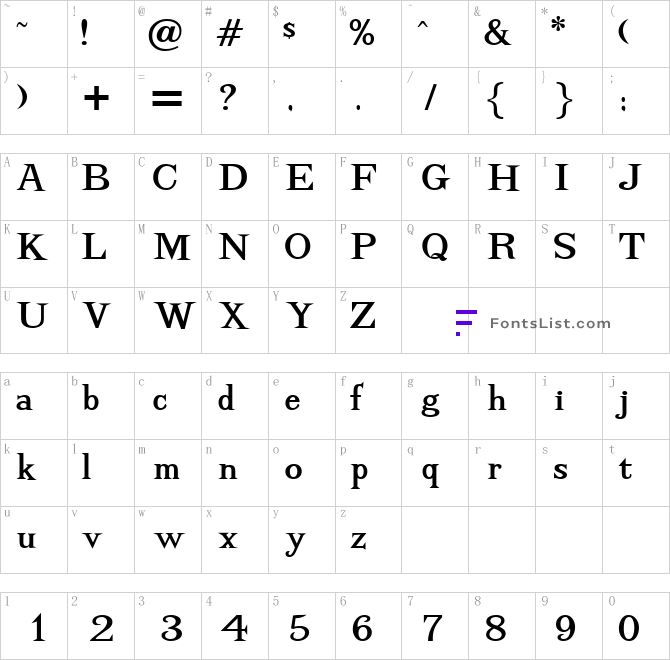
- Font Name:Adhesion DB
Adhesion-Regular-DB.ttf is a very beautiful artistic font, Adhesion-Regular-DB.ttf is widely used in the design and printing of various books and pictures,Adhesion-Regular-DB.ttf has a strong visual impact,Adhesion-Regular-DB.ttf is a commonly used font in newspapers, magazines and books, and is used in posters, e-commerce Poster design, store design, logo design, font design and other fields.Adhesion-Regular-DB.